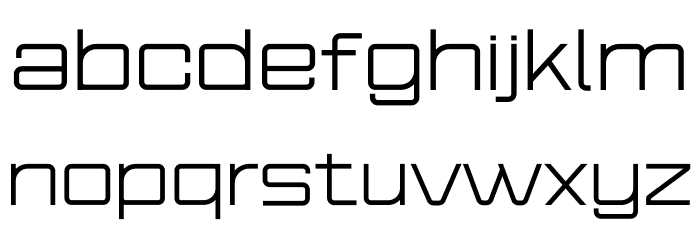
TELONE Thinpersonal Font
This font features a modern, geometric design with clean lines and a minimalist aesthetic. The characters are constructed with a consistent stroke width, creating a uniform appearance that is both sleek and sophisticated. The uppercase and lowercase letters maintain a similar structure, enhancing readability while preserving a distinct style. The numerals and special characters are designed to complement the alphabet, ensuring a cohesive look across all text. This font's simplicity and elegance make it versatile for various design applications.
A modern, geometric font with clean lines and a minimalist style.
- Proposed Projects: Ideal for tech branding, modern web design, minimalist posters, and sleek product packaging.
- Use Case: Headlines, Logos, Web design